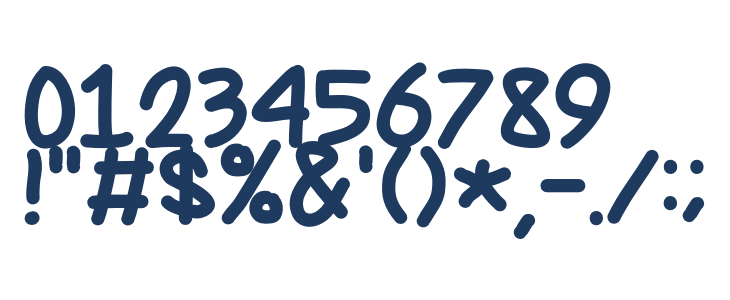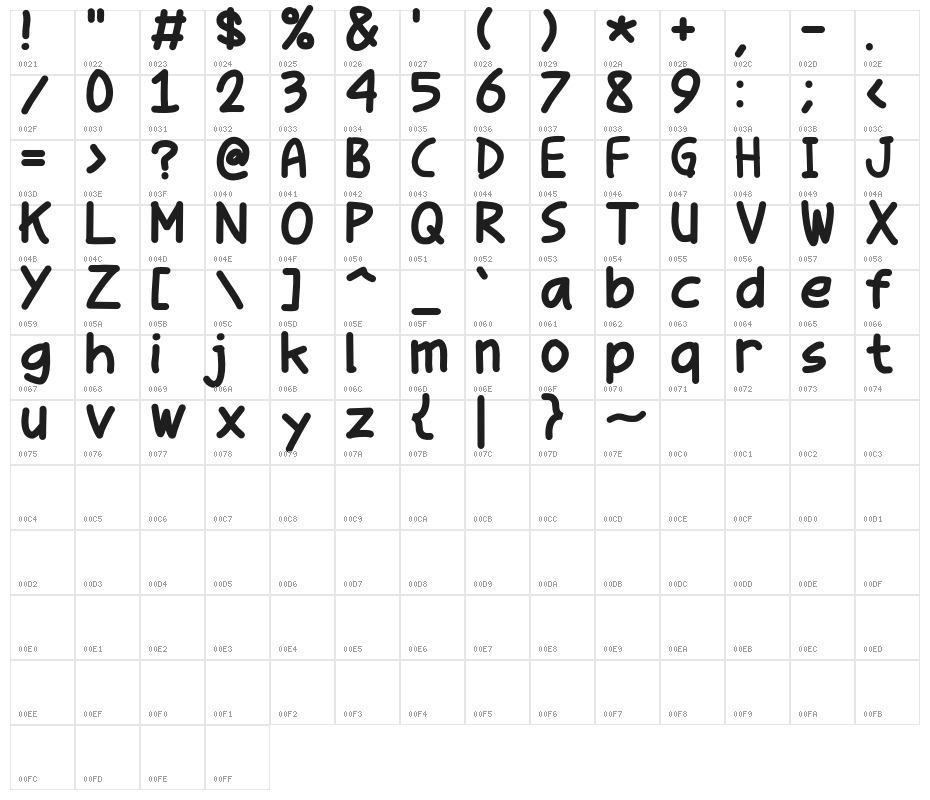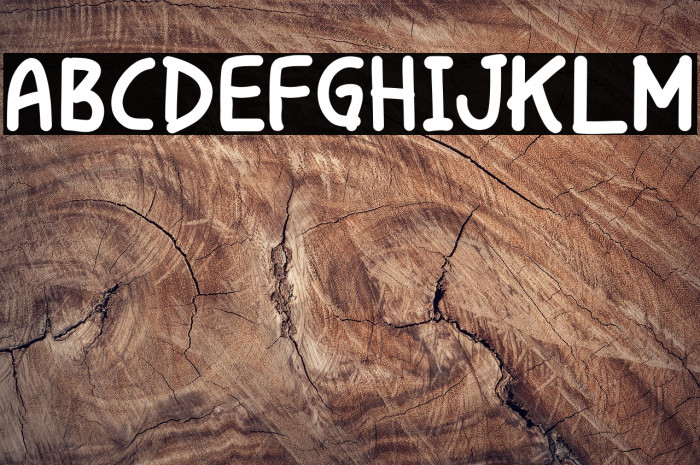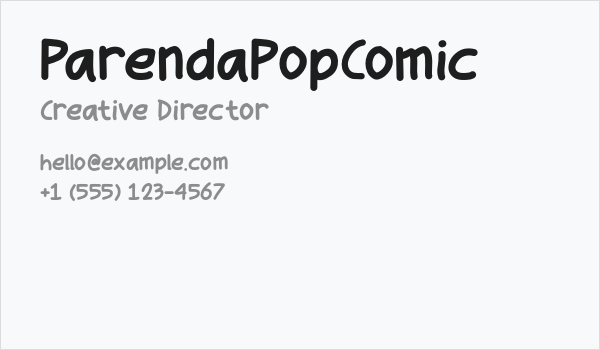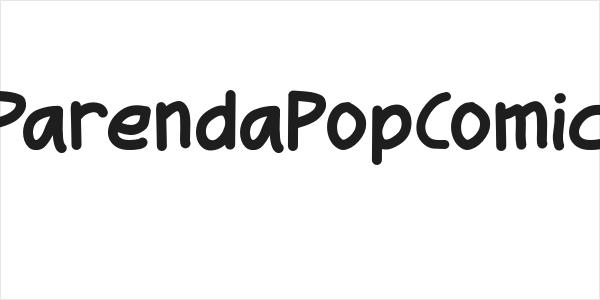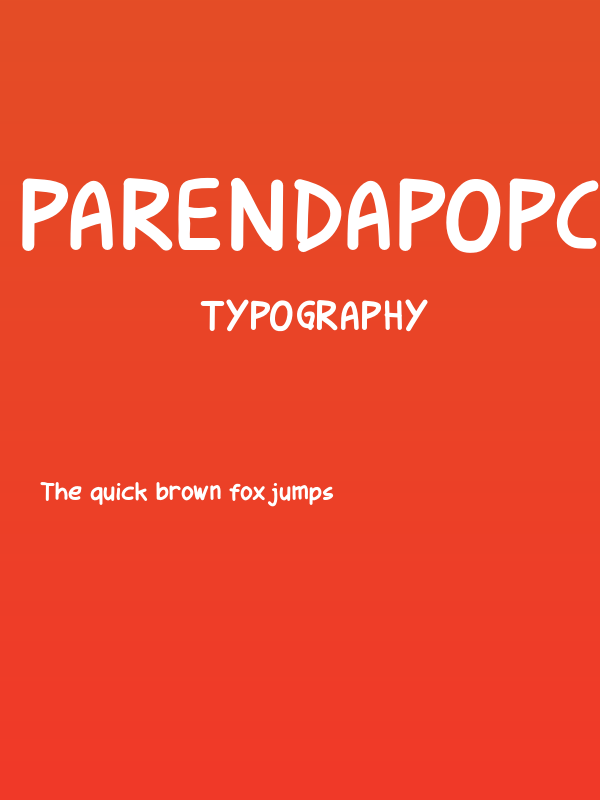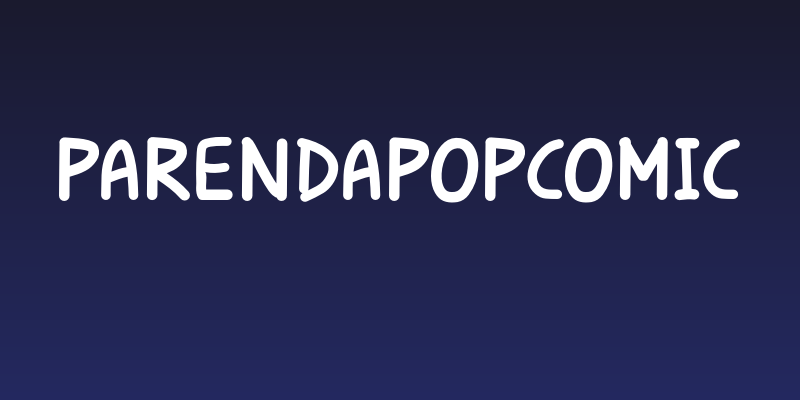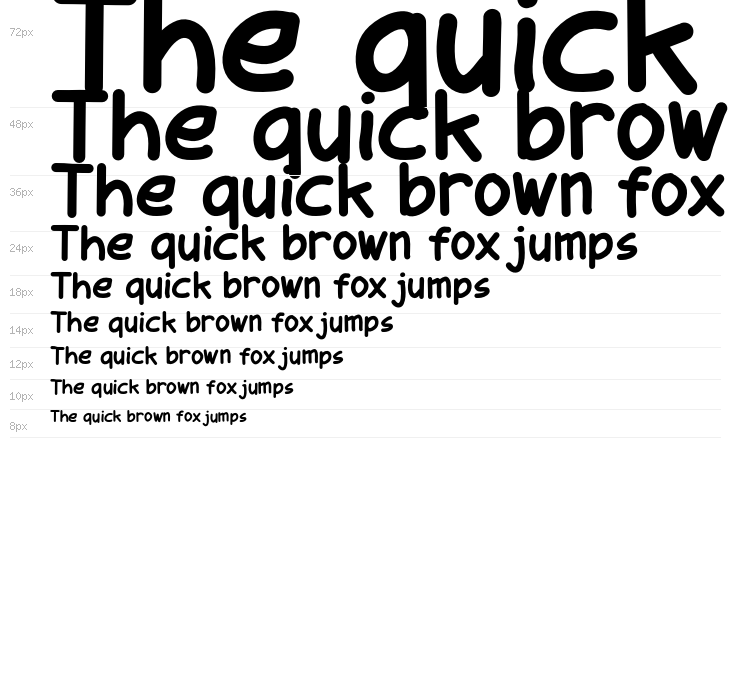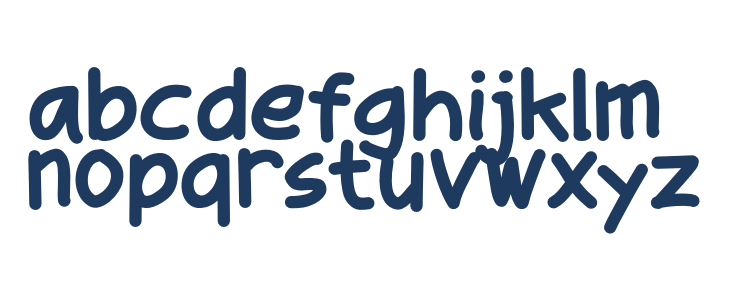
ParendaPopComic Font
ParendaPopComic Description
This playful and whimsical font features a hand-drawn, comic-style appearance with rounded edges and a casual feel. The characters are bold and slightly irregular, giving them a lively and informal look. The uppercase and lowercase letters maintain a consistent style, with a friendly and approachable vibe. Numbers and special characters are designed to match the overall aesthetic, making this font suitable for fun and engaging projects. Its unique style is perfect for capturing attention and conveying a sense of humor or creativity.
Overall StylePlayful, Whimsical
Proposed ProjectsIdeal for comic books, children's books, playful branding, posters, and social media graphics.